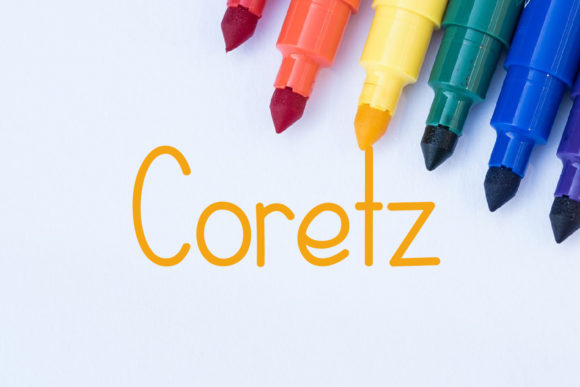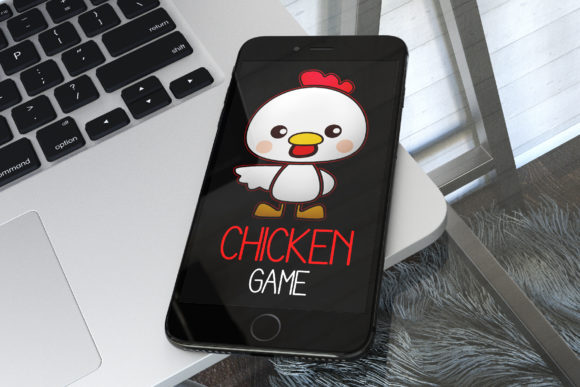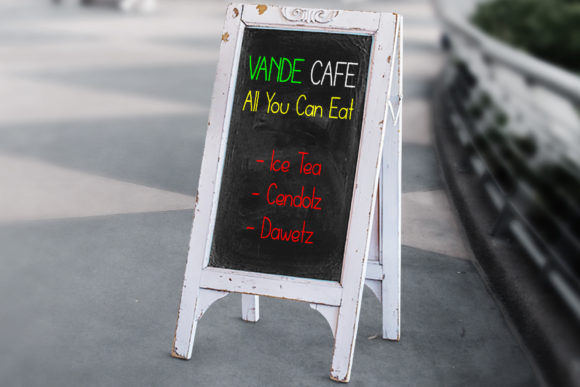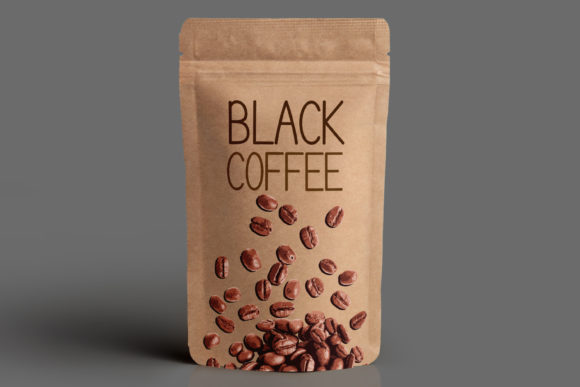
HomeScript FontsCoretz Font Script Fonts Coretz Font FacebookXPinterestWhatsApp Coretz Font Poster 2 Coretz Font Poster 3 Coretz Font Poster 4 Coretz Font Poster 5 About Coretz Font Coretz is a cute and fun handwritten font with a playful vibe! DOWNLOAD NOW People also explored Scathing Font Risalove Font Leighton Font Orange Font Winter Haven Font Condell Bio Le Amatcky Font Promule Font Angela Font 343 0 TagsCoretz Font Previous articleFixogum FontNext articleMance Rose Duo Font LEAVE A REPLY Cancel reply Comment: Please enter your comment! Name:* Please enter your name here Email:* You have entered an incorrect email address! Please enter your email address here Website: Save my name, email, and website in this browser for the next time I comment. Personal Use Free Omellia Personal Use Free Read more about this font Arnprior Personal Use Free Read more about this font Astagina Signature Personal Use Free Read more about this font Casual Personal Use Free Read more about this font BLOG 5 Fonts That Will Dominate Design Trends in 2026 5 Fonts for 2026 That Will Dominate Design Trends Typography plays a critical role in visual communication, and as we look ahead to 2026, it’s... To increase your work productivity, choose the most readable fonts. How to Install and Use Fonts on Windows, macOS, and Web Projects Elegant Wedding Invitation Fonts – Handwritten & Script Fonts